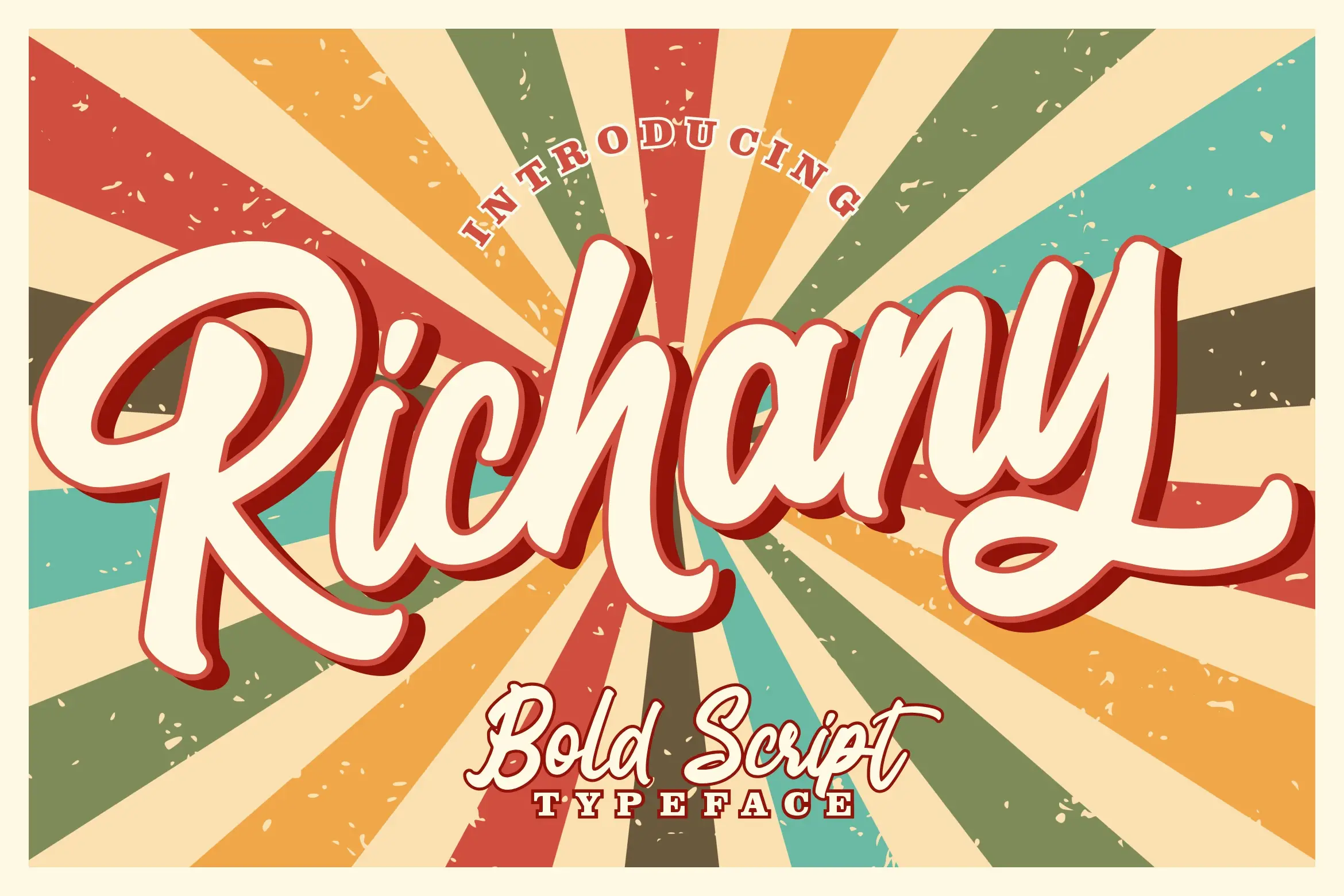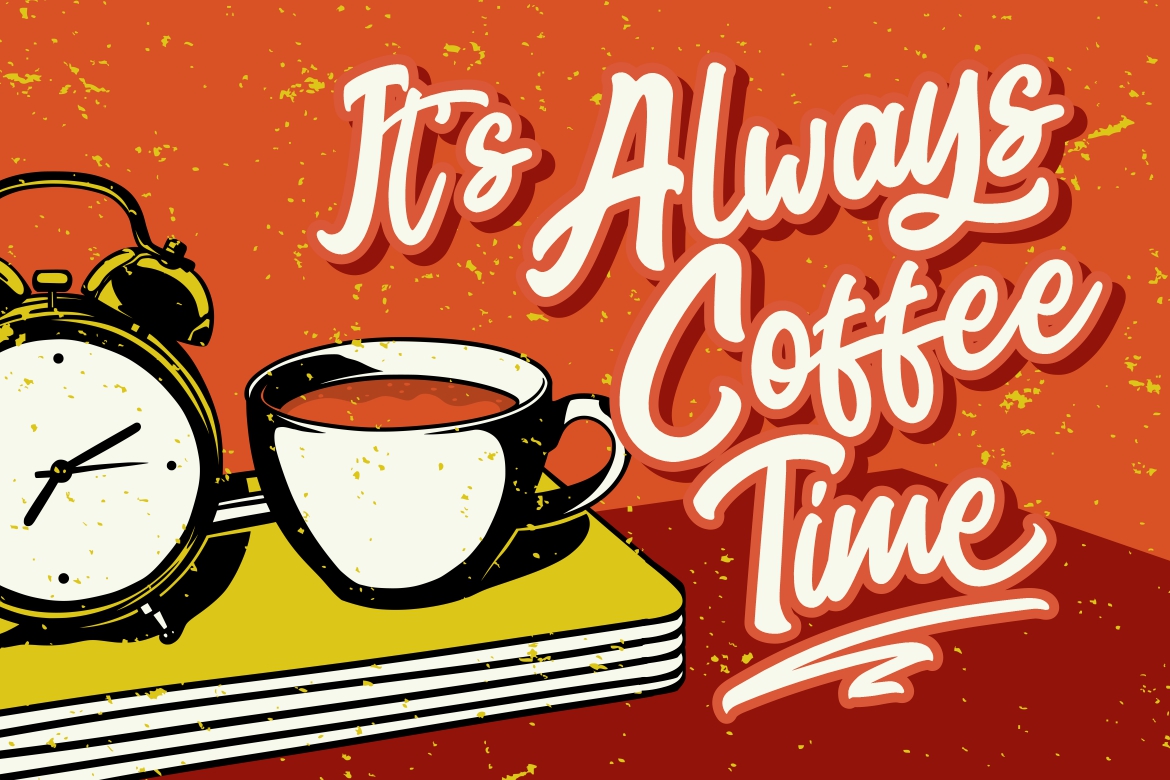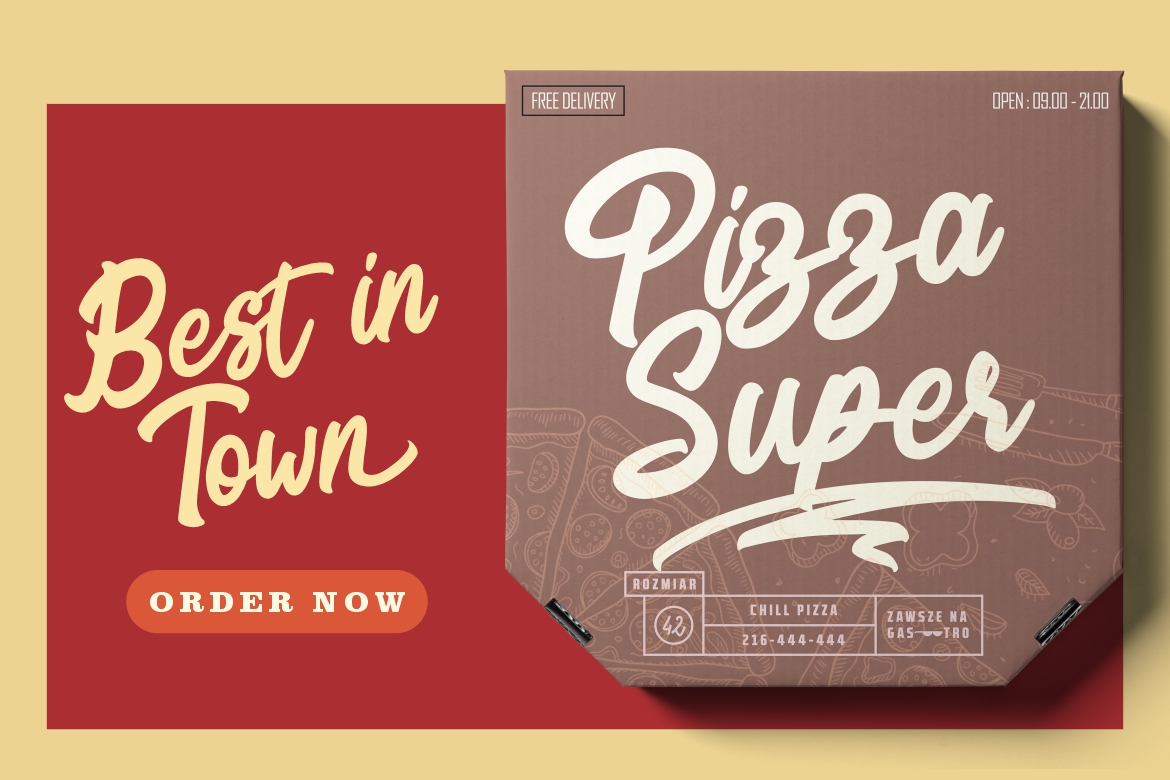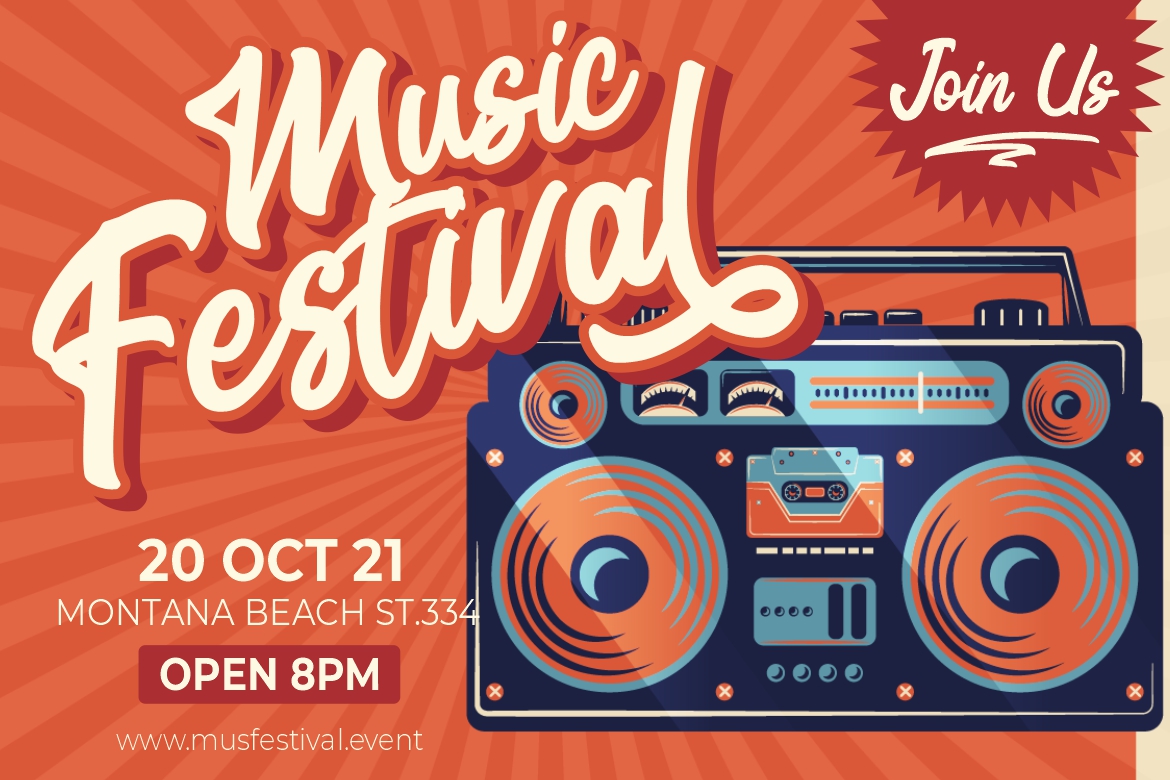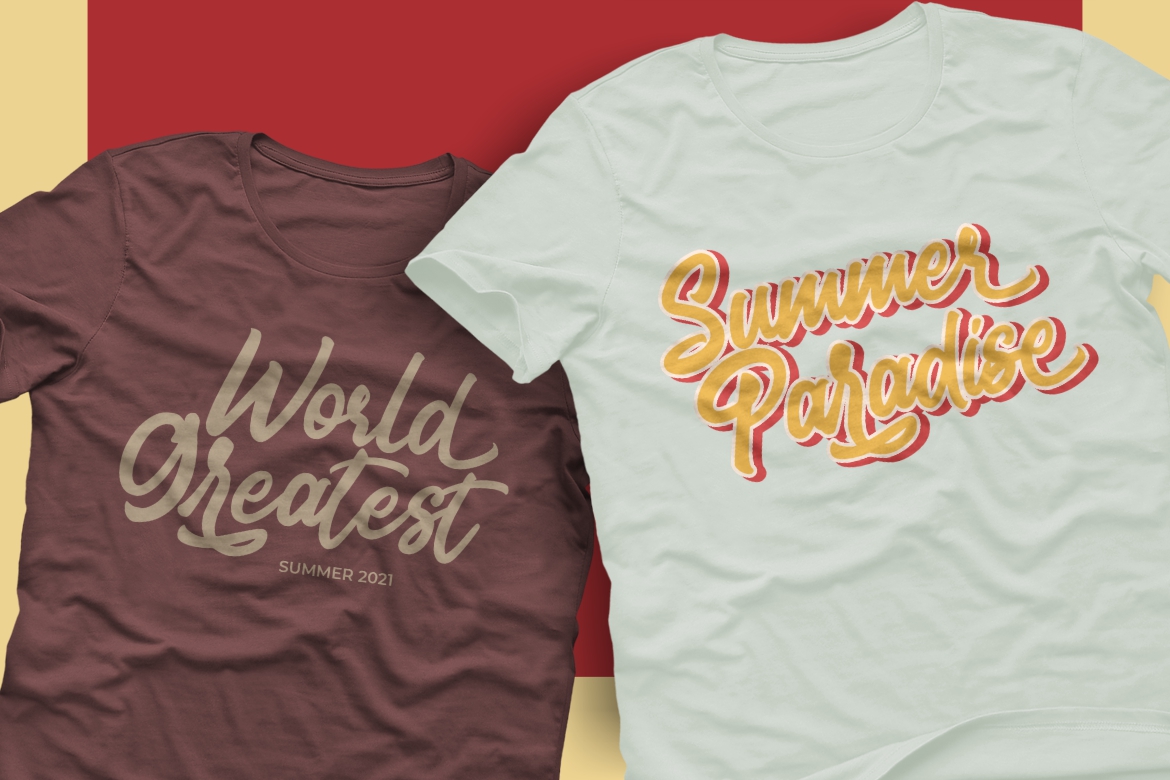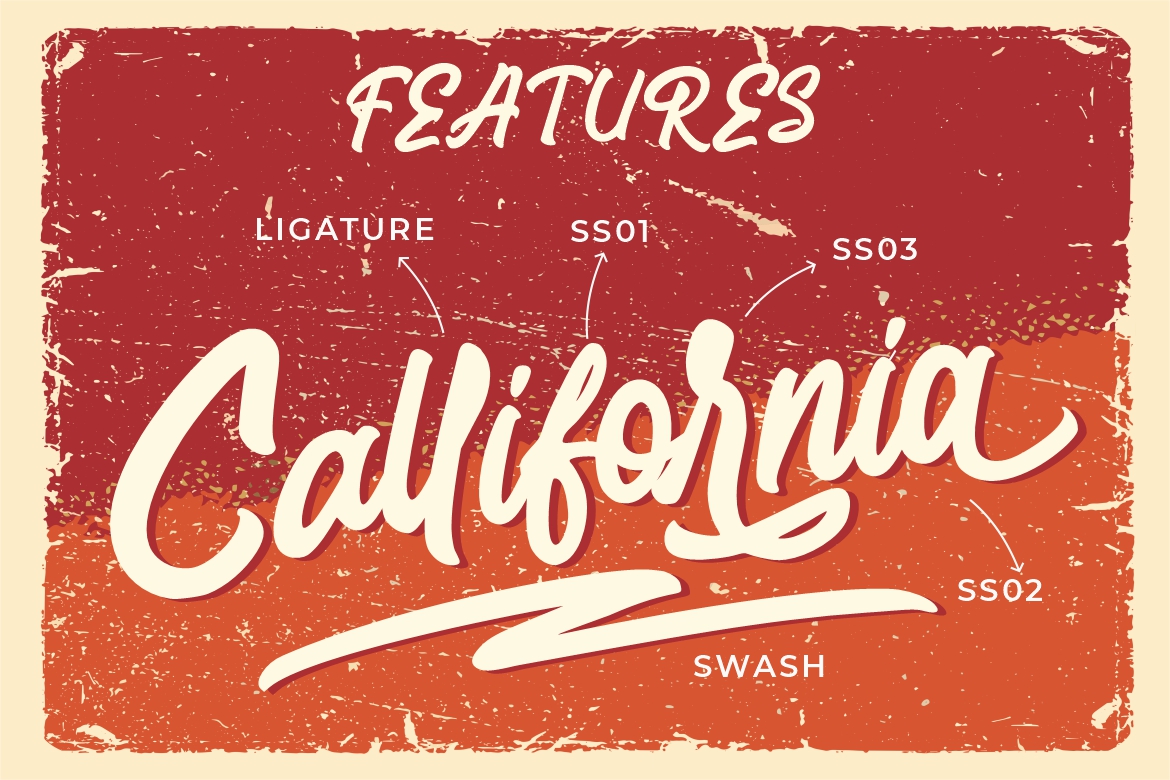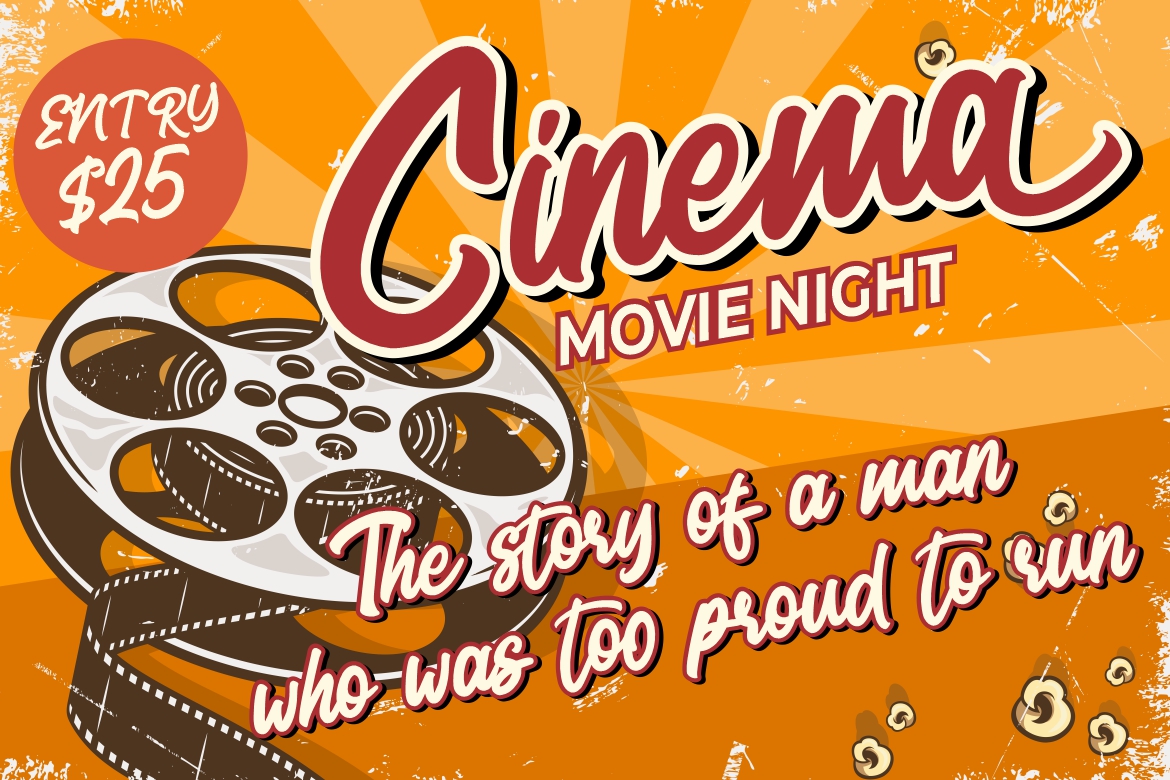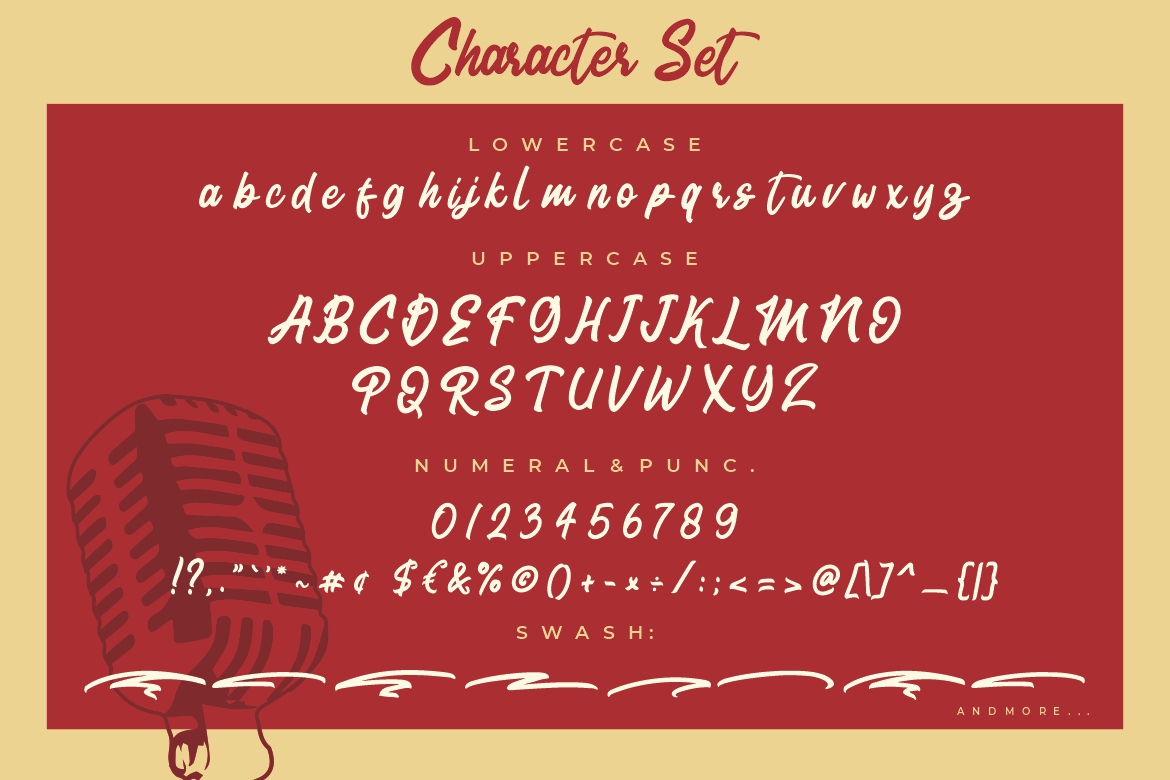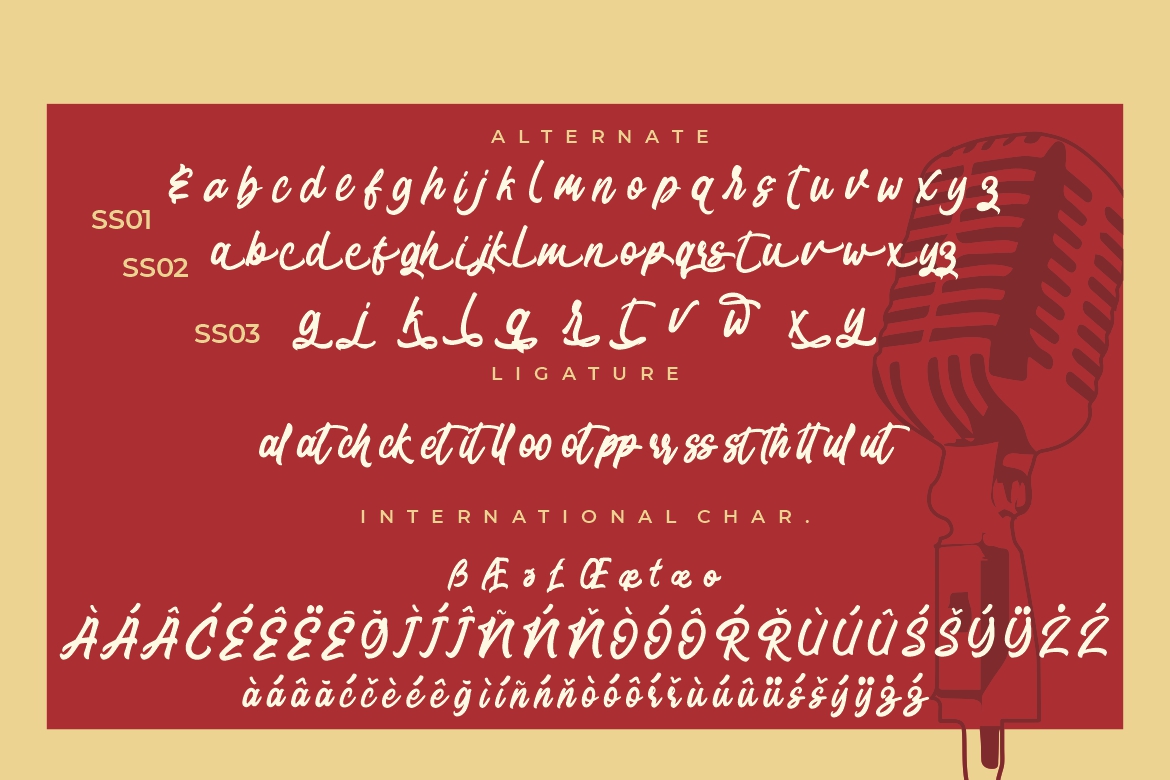
Richany Bold Business Font
Introducing Richany Bold Script – A retro bold script font with various alternate and ligature. This font will looks awesome and amazing in many way to your latest project. The font is perfect for movie title, logo, blogging, brand identity, book title, social media, branding, wedding invites, cards or simply use it in your next design project and suitable to use for many occasion.
• Ton of glyphs
• Ligature & Alternate
• Fonts include multilingual support for; Afrikaans, Albanian, Czech, Danish, Dutch, English, Estonian, Finnish, French, German, Hungarian, Italian, Latvian, Lithuanian, Norwegian, Polish, Portuguese, Slovak, Slovenian, Spanish, Swedish.